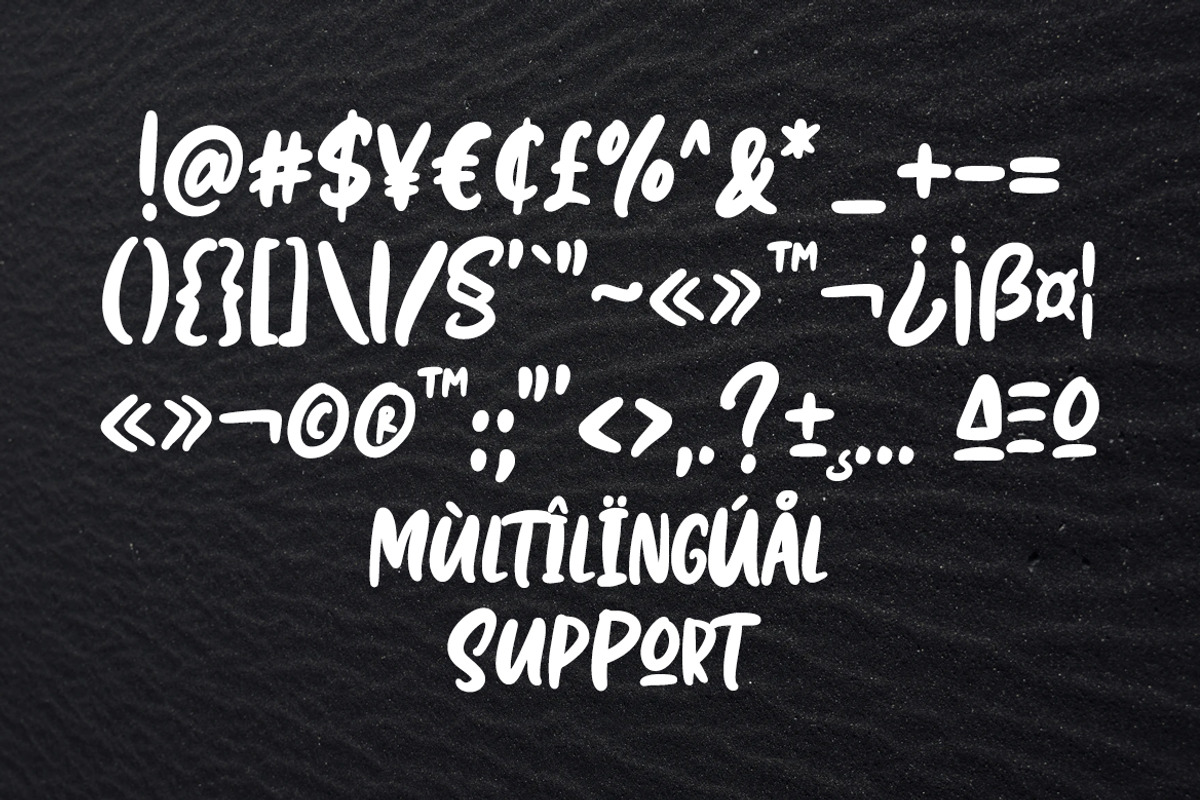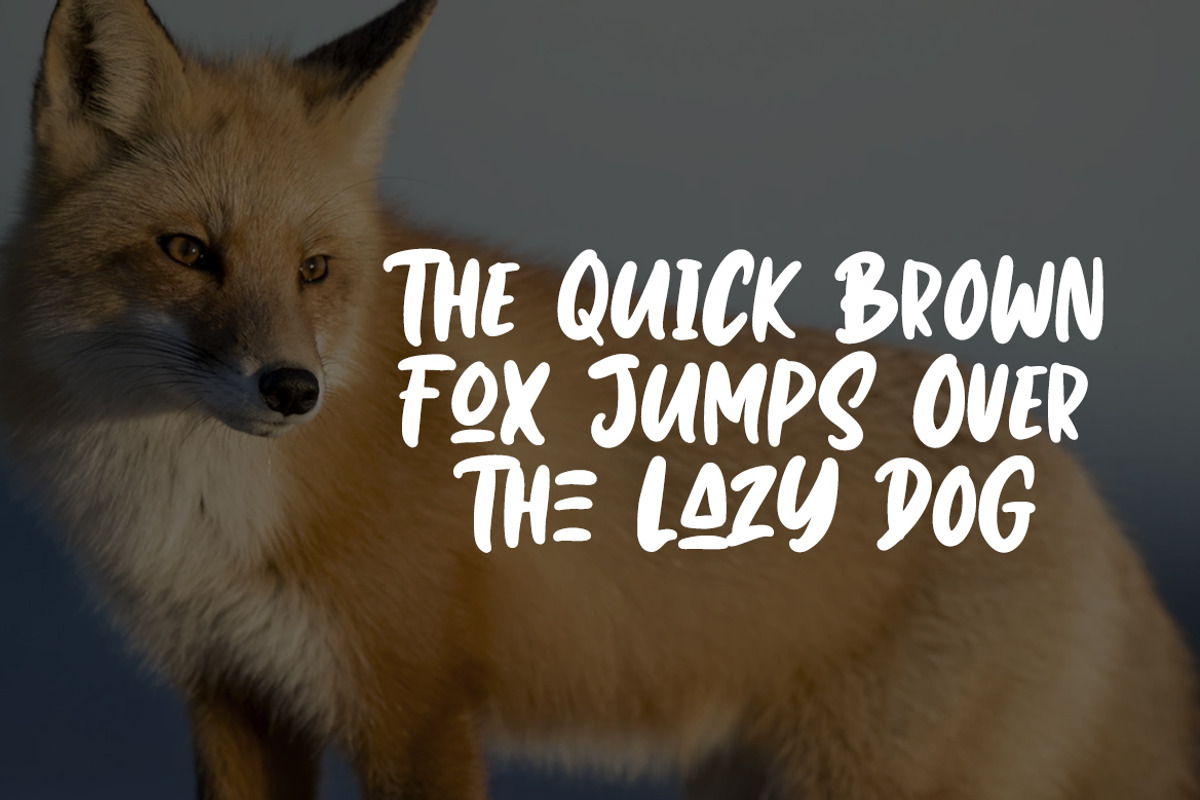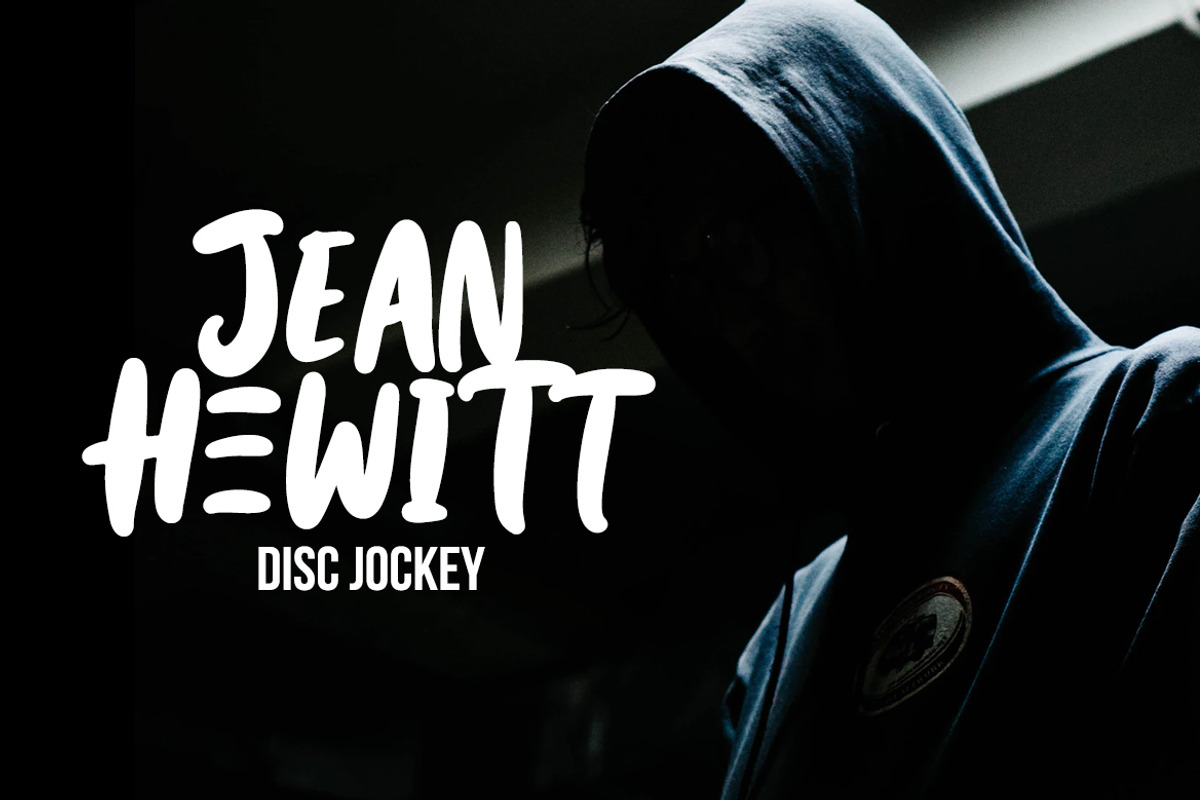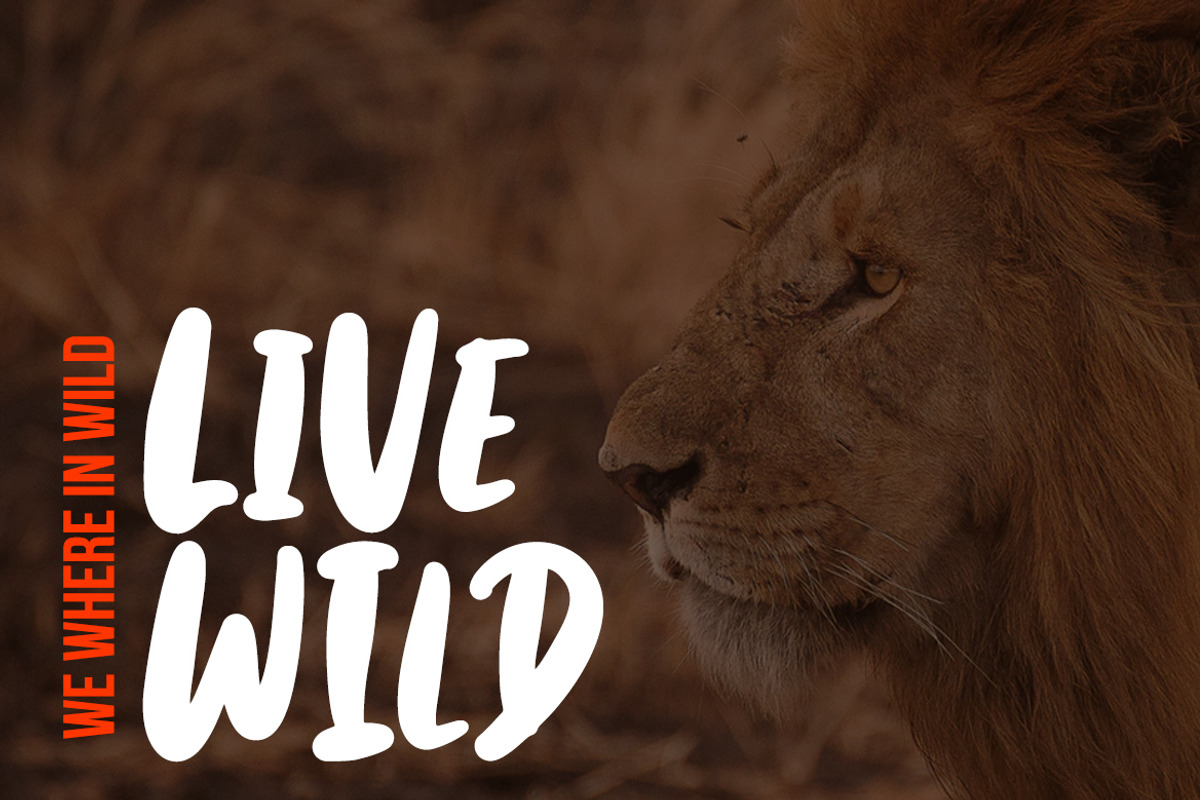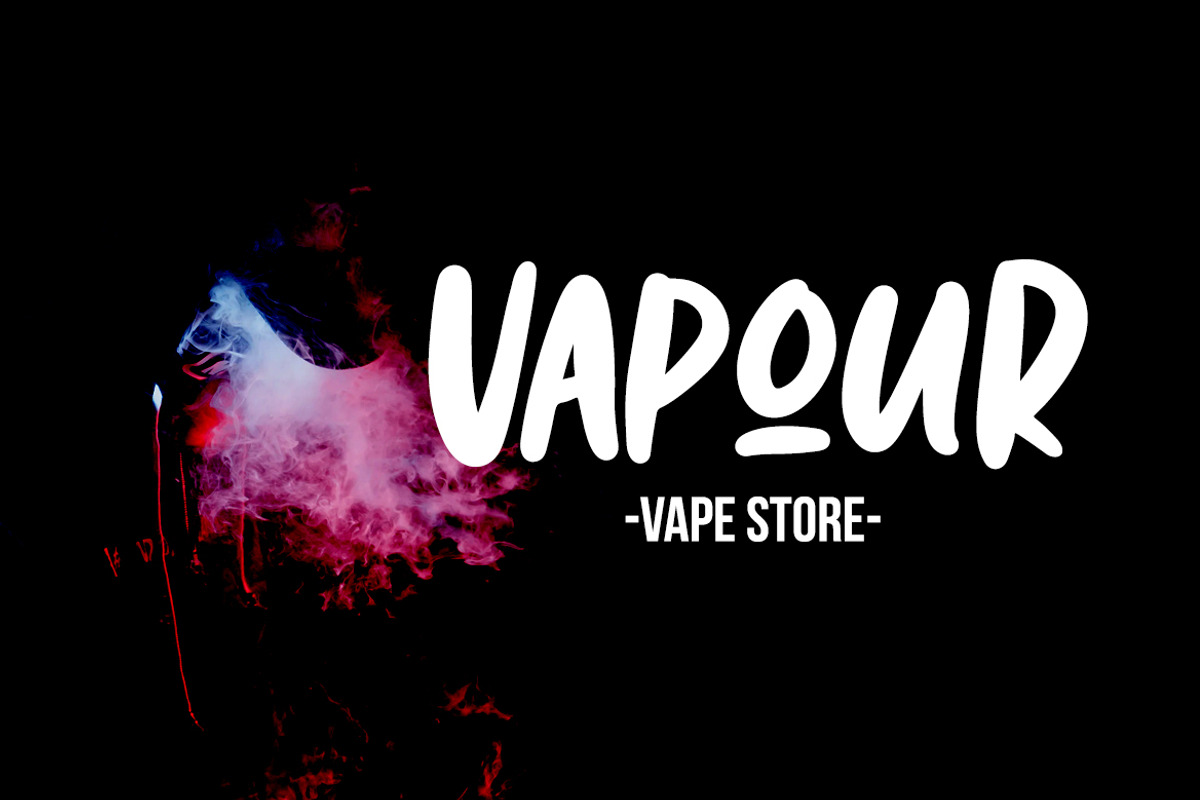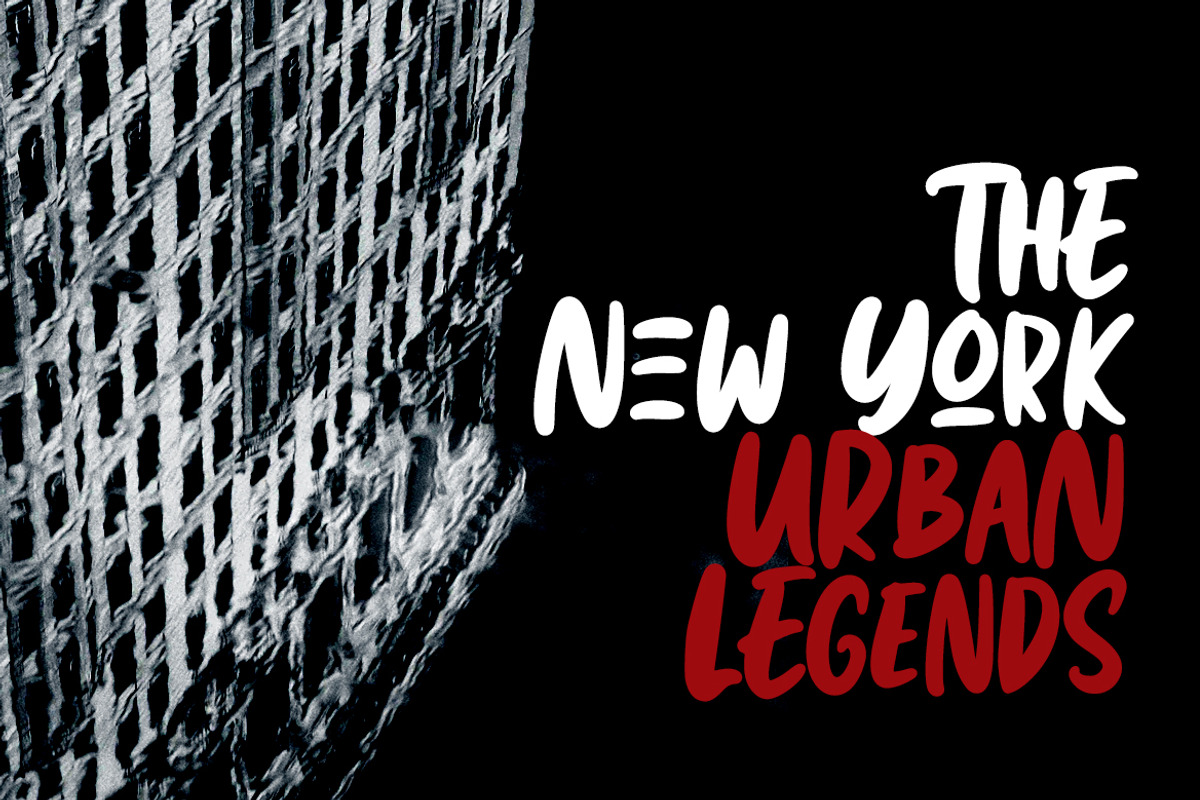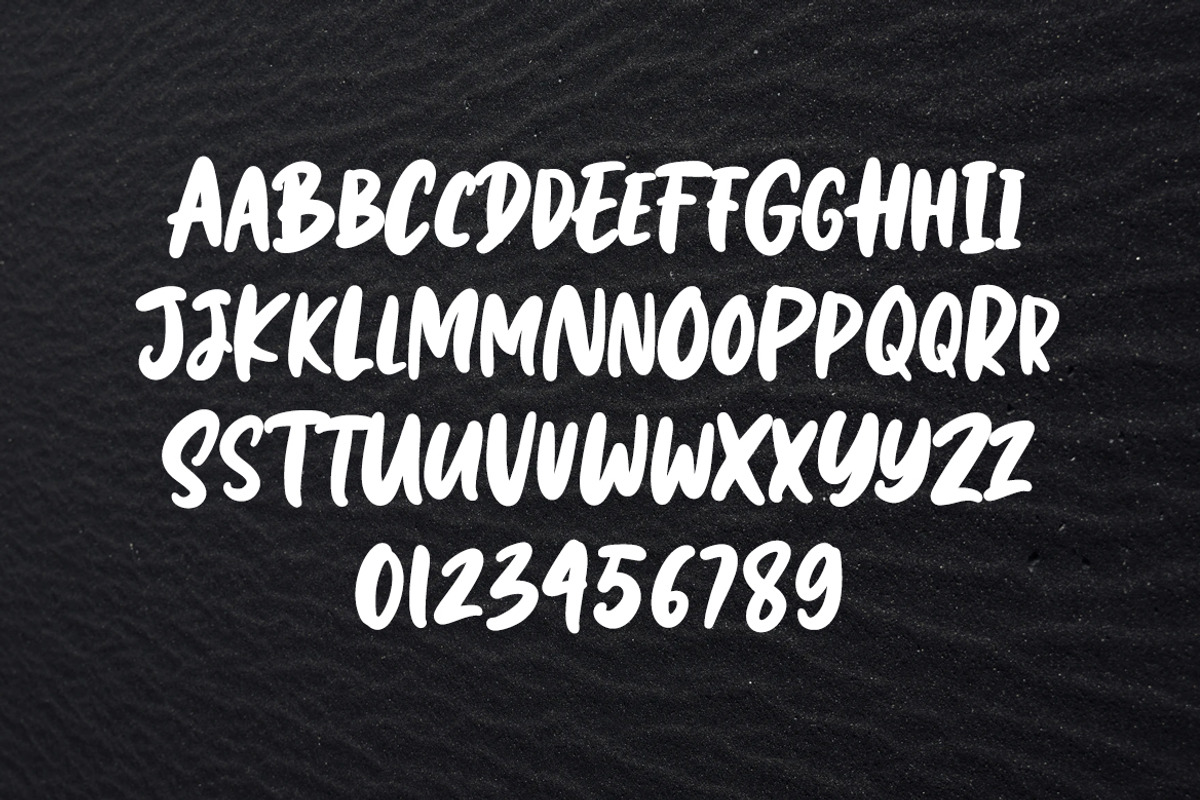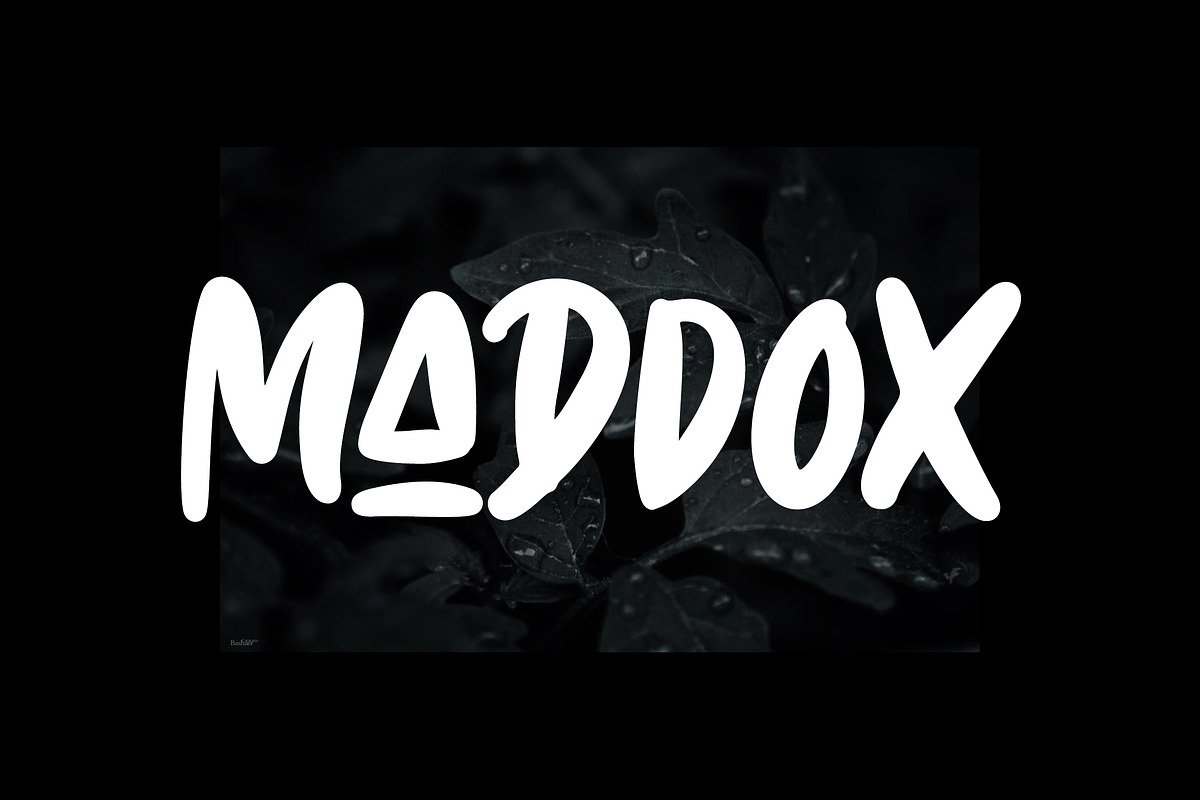
Maddox
Maddox is a font with bold and natural dry brush strokes. You can use and enjoy Maddox for anything projects, for promotional material, handwritten quotes, product packaging, merchandise, and branding projects.
And this font perfect for logo, branding, poster, apparel, photography, title, social media post, ad banner, book cover, product packaging, handwritten quotes, greeting cards, and advertising. You can create more easily with uppercase and lowercase combination make it as if you wrote it yourself.
All fonts are capitals containing upper & lowercase characters, numerals, multilingual support and a large range of punctuation. With OTF, TTF, WOFF, and WOFF2 format.